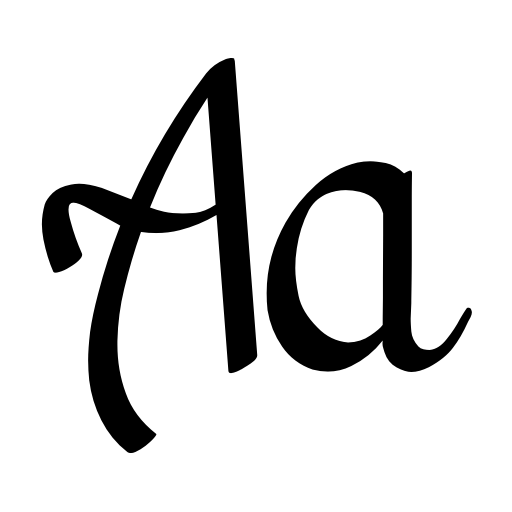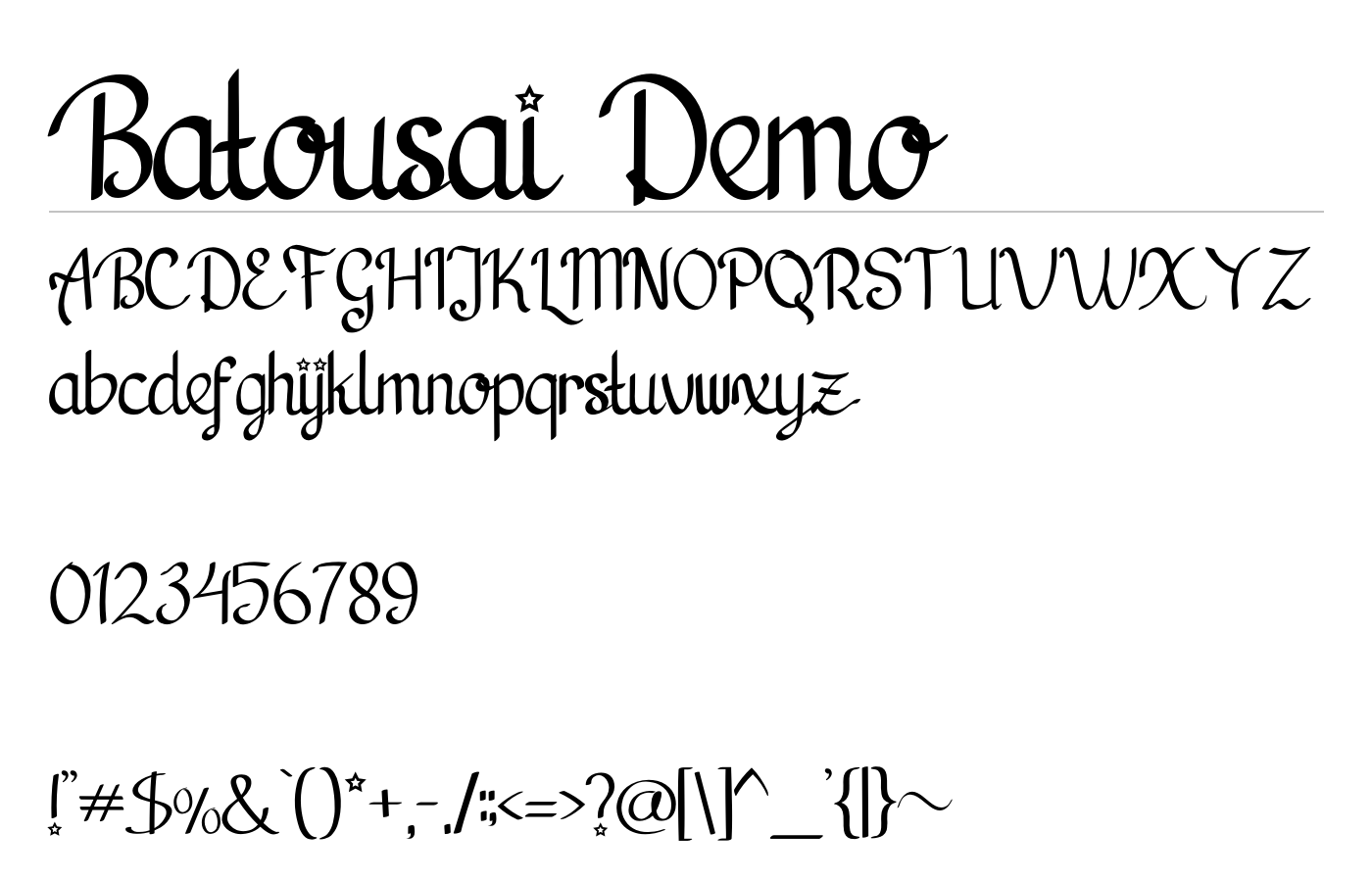
Batousai Demo is a playful and whimsical serif font with a hand-drawn, calligraphic feel that combines elegance with a quirky charm. Its distinct letterforms include decorative star accents and unique curves, making it ideal for creative projects like logos, invitations, or headlines where a touch of personality and flair is desired. This font works best in settings that benefit from an artistic, informal style rather than formal or lengthy body text.
Batousai Demo Font
About Batousai Demo Font